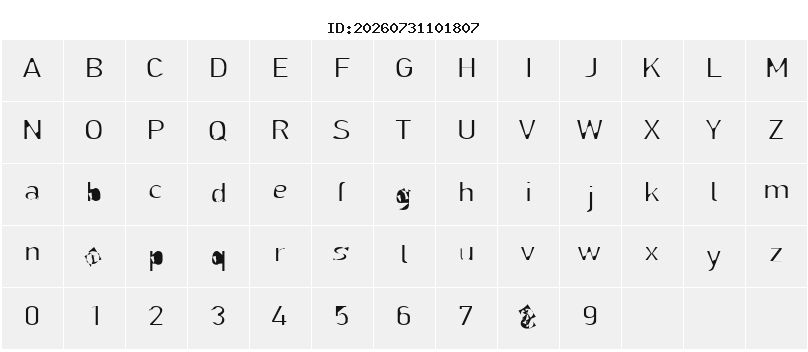
LillSnase Preview
About LillSnase.ttf
LillSnase.ttf is a modern, elegant sans-serif font designed for ultimate readability and visual harmony. Perfect for branding, headlines, web design, and print materials.